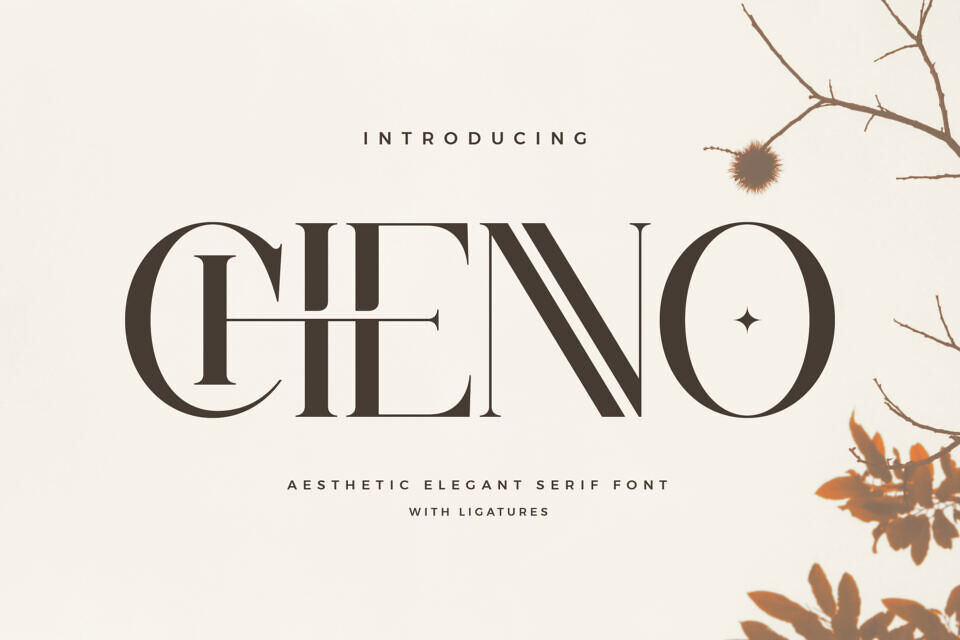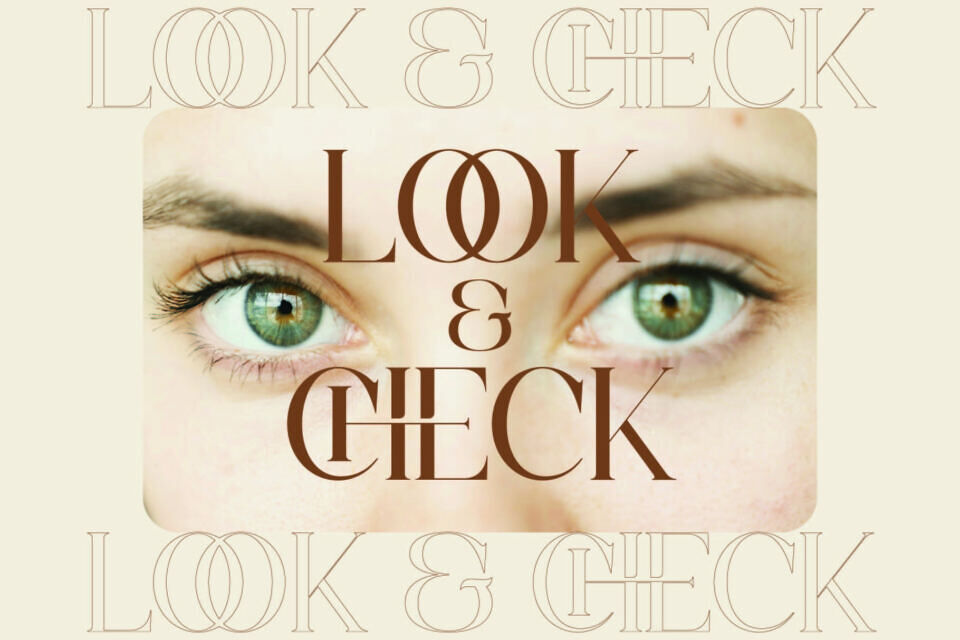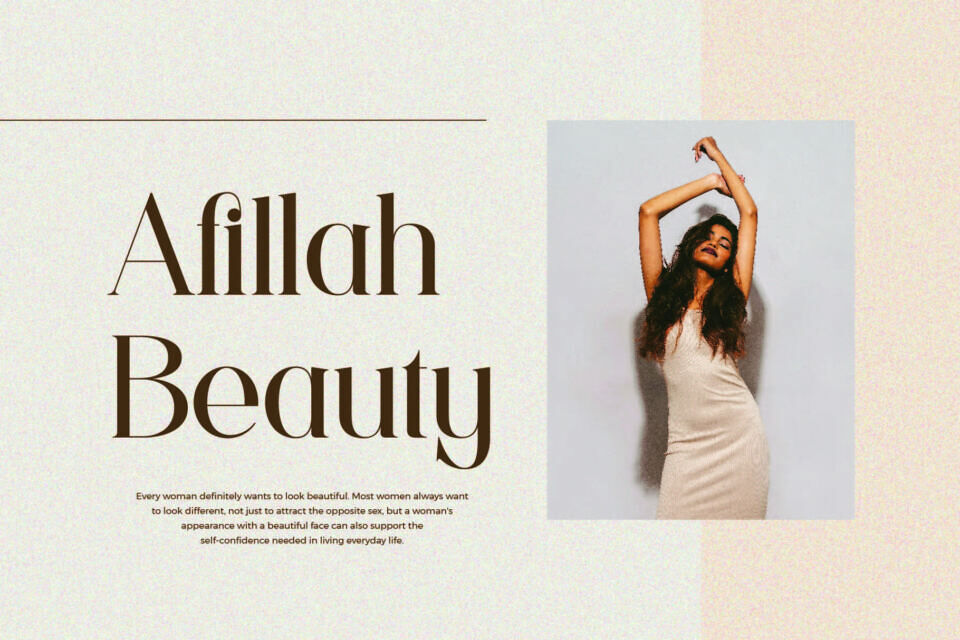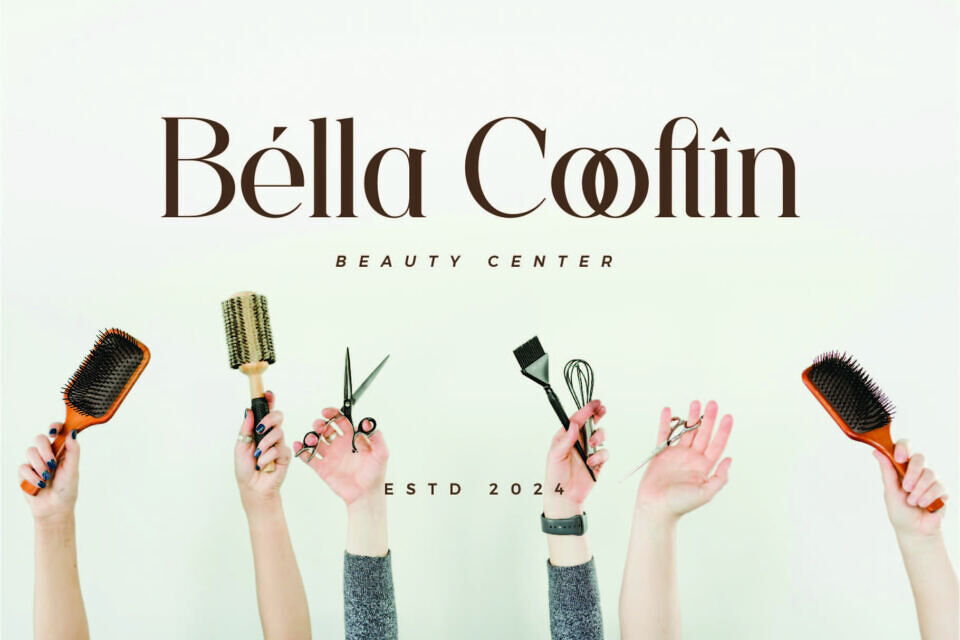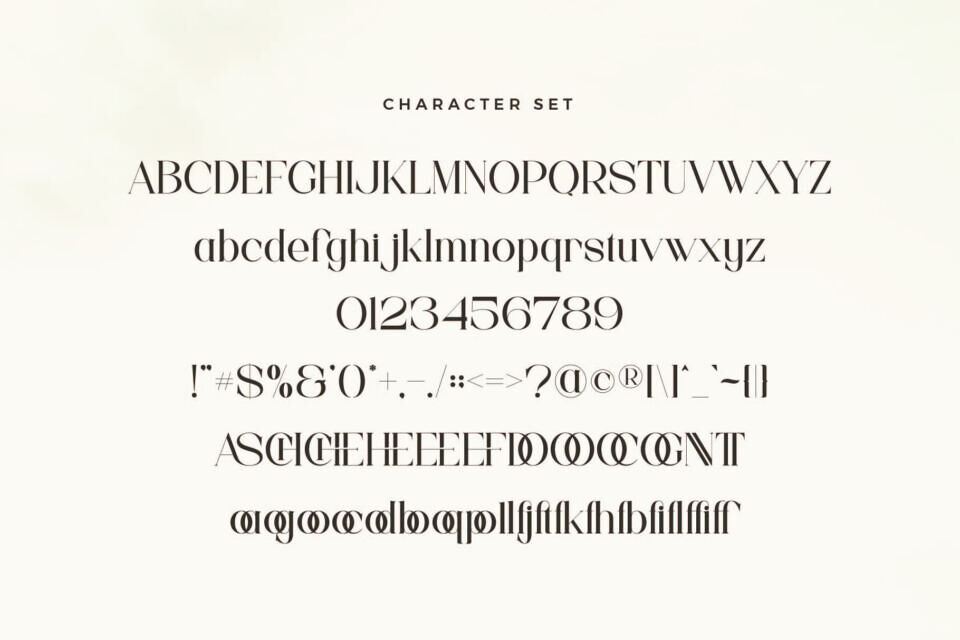
Chenno Font
Chenno is a stylish serif font that blends classic elegance with modern sophistication. Its refined serifs and well-proportioned letterforms make it perfect for branding, editorial work, and luxury designs. This font brings a sense of timeless beauty and grace, enhancing any project with a touch of class.